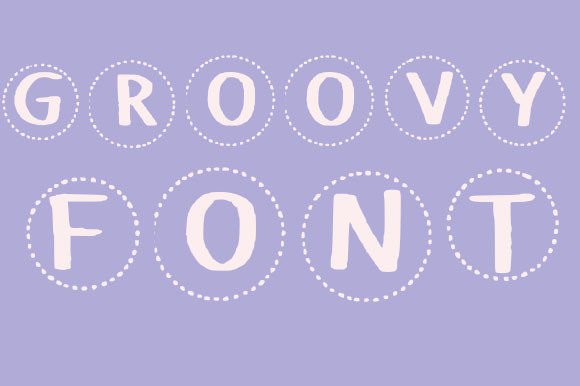
The Groovy Font: A Stylish and Whimsical Decorative Font
I’ll never forget the time I was working on a back-to-school project for a client, and I just couldn’t find the right font to match the playful vibe they were going for. The design needed to be youthful, fun, and engaging, but everything I tried seemed either too boring or too over-the-top. That’s when I stumbled upon the Groovy font, and it was love at first sight! 💕
Groovy is a stylish and whimsical decorative font that’s perfect for adding a touch of personality to any design. Its unique blend of playfulness and sophistication makes it an excellent choice for a wide range of projects, from snack packaging to informal posters.
- ✨ Unique and eye-catching design that’s sure to grab attention
- ✅ Highly versatile and adaptable to different design styles
- 💖 Perfect for creating youthful and playful designs that appeal to a younger audience
- 🎉 Excellent for use in informal settings, such as social media graphics, flyers, or brochures
While Groovy is an amazing font, there are a few things to keep in mind:
- 🤔 May not be suitable for formal or professional designs, as it can come across as too playful
- ⚠️ Some characters may not be suitable for use at small font sizes, as they can become difficult to read
Groovy was inspired by the funky, carefree vibes of the 1970s. Imagine a world where disco balls, bell-bottom jeans, and funk music reigned supreme. The designer of Groovy wanted to capture that essence in a font that would make designs pop with personality and fun.
Q: What is the best use for Groovy?
A: Groovy is perfect for informal designs, such as social media graphics, flyers, brochures, and snack packaging.
Q: Is Groovy a difficult font to read?
A: Groovy can be a bit challenging to read at small font sizes, but it’s generally easy to read at larger sizes.